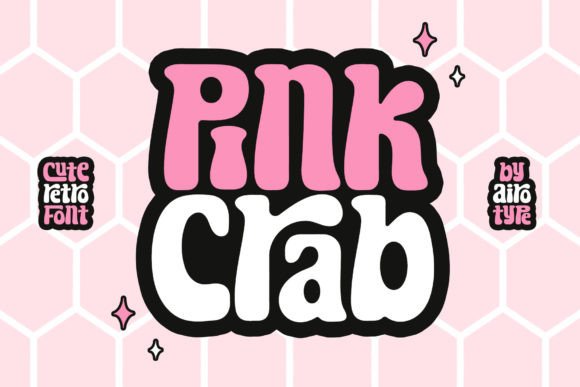
Introducing Pink Crab Font, the ultimate choice for all your baby business needs! Created by airotype, this font is not only visually captivating but also keyword-rich, informative, and perfect for marketing to users looking to buy.
Pink Crab Font is a delightful and charming display font that will instantly transport you to a world of fun and cuteness. With its playful style and vintage touch, it adds a touch of nostalgia to any project. Whether you're designing logos, crafting, creating t-shirts, or working on branding, this font is your go-to choice for adding a fun and vibrant element.
What sets Pink Crab Font apart is its incredible ligatures for both uppercase and lowercase letters. These ligatures add a unique and whimsical twist to your designs, making them stand out from the crowd. Imagine the possibilities of creating eye-catching and memorable designs with these special ligatures!
But that's not all! Pink Crab Font is incredibly versatile and can be used in a variety of projects. From stickers to sublimation, quotes to greeting cards, this font adds a touch of playfulness to everything it touches. Let your creativity run wild and watch as your designs come to life with Pink Crab Font.